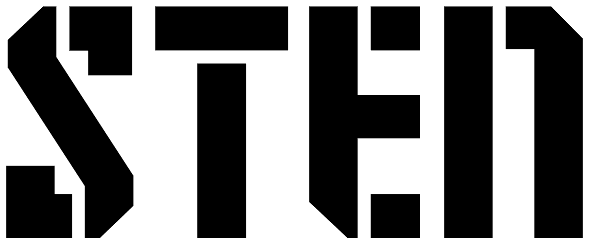
Sten
Bringing a renewed spirit to its type, machine fonts never looked this futuristic, or had such a striking high impact effect. Sten's profuse linear abstraction and folded stencil design grab the eye's attention, while the heavy block-like forms...